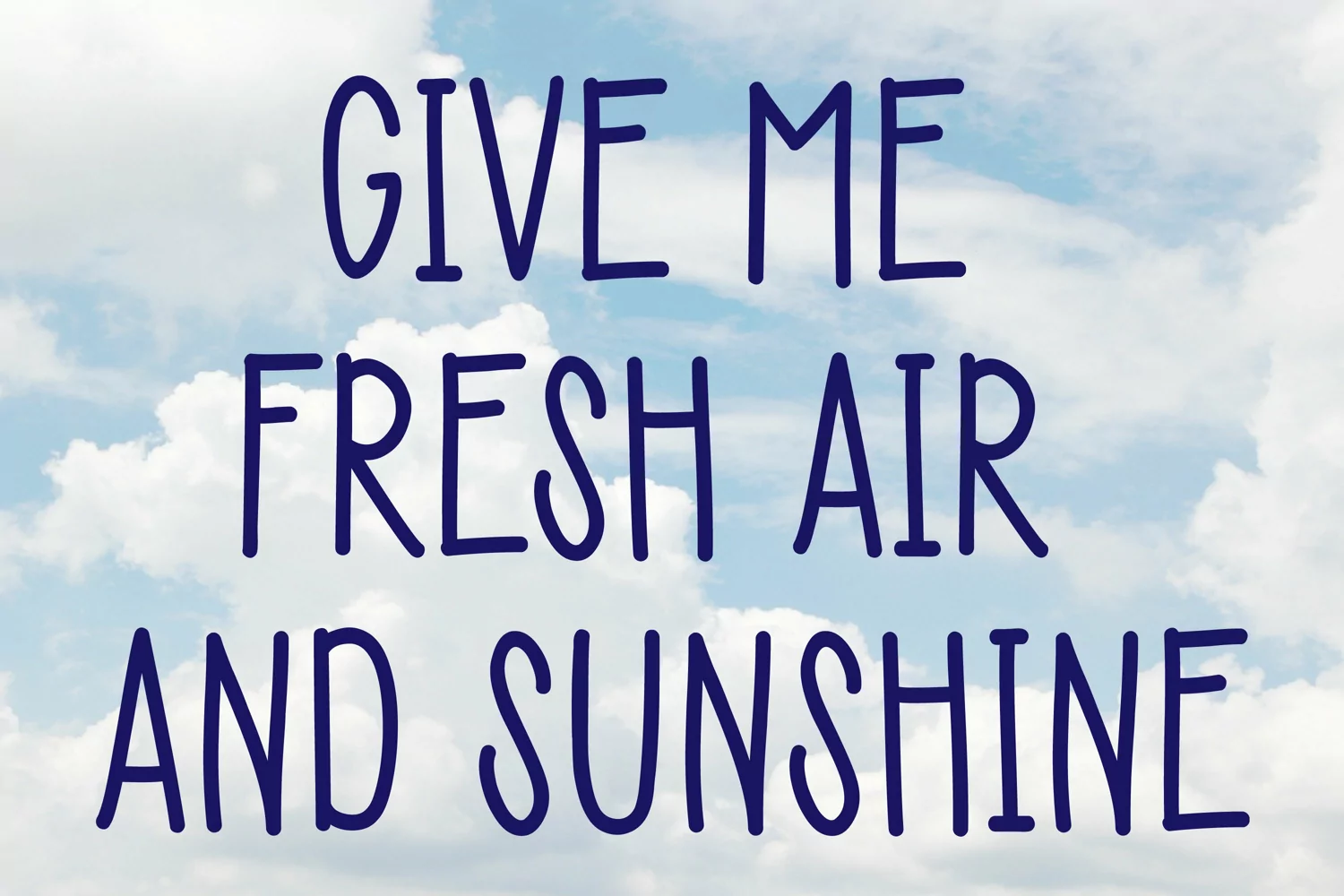
Country Daisy Font - Handwritten Farmhouse Font
An all caps font (the upper and lowercase letters are the same).
This font is perfect for all of your creative projects! Use it for Cricut projects, SVG designs, greeting cards, planner pages, stickers, branding, and more!